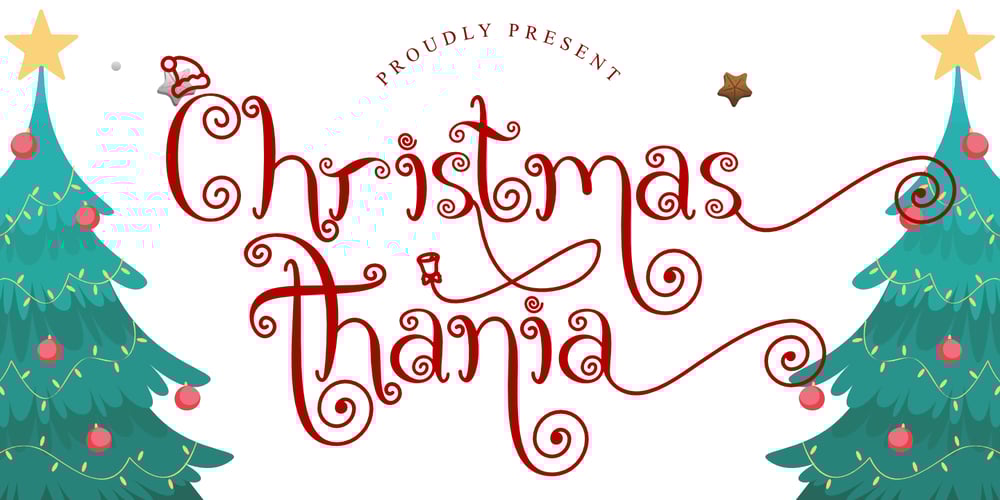
Christmas Thania
Christmas Thania font
Christmas Thania Font Family was designed by Stephanus Prabowo and published by Andrey Font Design. Christmas Thania contains 1 styles and family package options. Christmas Thania is a friendly, fresh, rich, and elegant handwritten font. It is ideal for holiday-themed greeting cards and for any crafting project that requires a romantic touch.